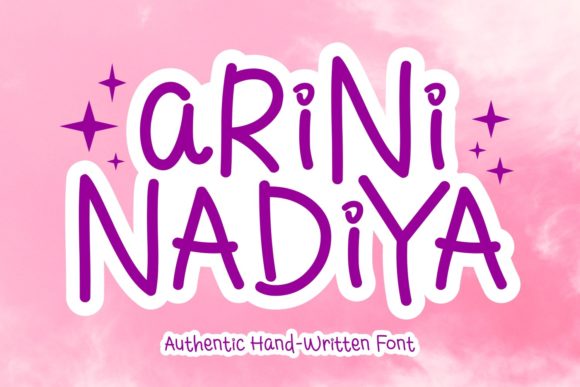
Introducing Arini Nadiya Font: Add a Joyful Touch to Your Designs
Are you tired of using the same old fonts in your designs? Look no further! Arini Nadiya Font is here to bring a playful and quirky touch to your creations. This adorable handwritten font is perfect for designers and crafters who want to add a personal and joyful feel to their work.
What is Arini Nadiya Font?
Arini Nadiya Font is a unique and charming handwritten font that is sure to capture the hearts of designers and crafters alike. Its playful style and quirky feel make it perfect for a wide range of design projects, from stationery art to social media posts.
Key Features of Arini Nadiya Font
- Playful Style: Arini Nadiya Font has a fun and playful style that is sure to add a joyful touch to your designs.
- Handwritten Look: This font has a beautiful handwritten look that is perfect for creating personal and unique designs.
- Quirky Feel: The quirky feel of Arini Nadiya Font makes it perfect for designers and crafters who want to add a touch of personality to their work.
- Versatile: This font is versatile and can be used for a wide range of design projects, from stationery art to social media posts.
Uses of Arini Nadiya Font
Arini Nadiya Font is perfect for a wide range of design projects, including:
- Stationery Art: Use Arini Nadiya Font to create beautiful and unique stationery art, including greeting cards, invitations, and more.
- Social Media Posts: Add a playful touch to your social media posts with Arini Nadiya Font. It’s perfect for creating eye-catching graphics and quotes.
- Digital Art: Arini Nadiya Font is perfect for digital artists who want to add a personal touch to their work.
- Crafting: Use Arini Nadiya Font to create unique and personalized crafts, including scrapbooking, journaling, and more.
Benefits of Using Arini Nadiya Font
There are many benefits to using Arini Nadiya Font in your designs, including:
- Unique Look: Arini Nadiya Font has a unique and playful look that will set your designs apart from the rest.
- Easy to Read: This font is easy to read, making it perfect for use in a wide range of design projects.
- Customizable: Arini Nadiya Font is customizable, allowing you to adjust the font to fit your design needs.
- Fun to Use: This font is fun to use and will add a playful touch to your designs.
Tips for Using Arini Nadiya Font
Here are a few tips for using Arini Nadiya Font in your designs:
- Use it for Headings: Arini Nadiya Font is perfect for use in headings and titles. It adds a playful touch and grabs the reader’s attention.
- Mix it with Other Fonts: Don’t be afraid to mix Arini Nadiya Font with other fonts to create a unique look.
- Experiment with Colors: Arini Nadiya Font looks great in a wide range of colors. Experiment with different colors to find the one that works best for your design.
Arini Nadiya Font is a unique and playful handwritten font that is perfect for designers and crafters who want to add a joyful touch to their designs. Its quirky feel and playful style make it perfect for a wide range of design projects, from stationery art to social media posts. With its easy-to-read design and customizable features, Arini Nadiya Font is a great addition to any designer’s toolkit.